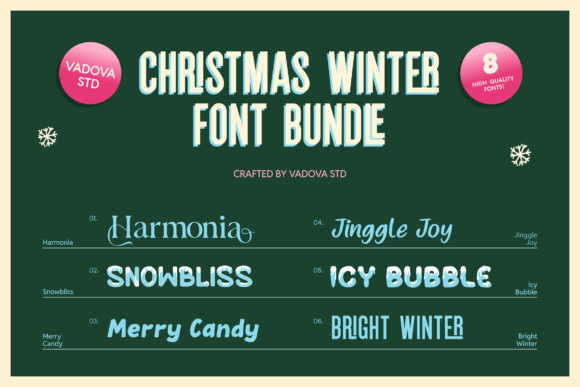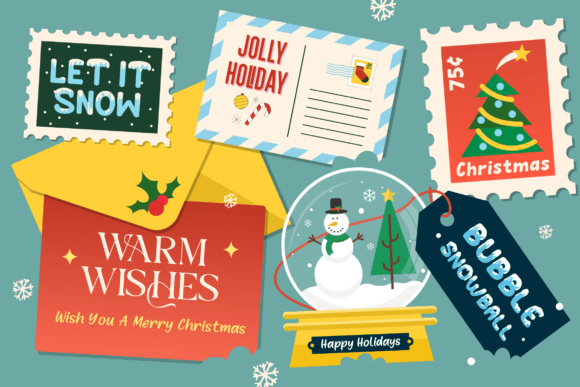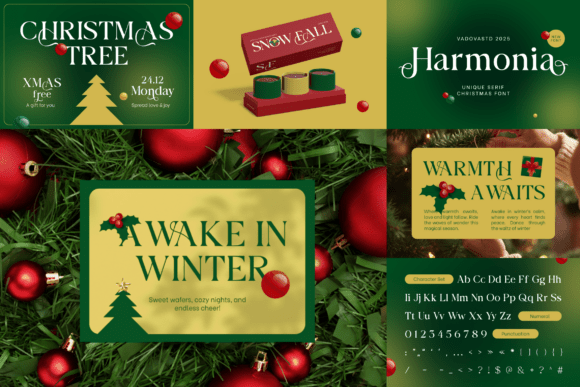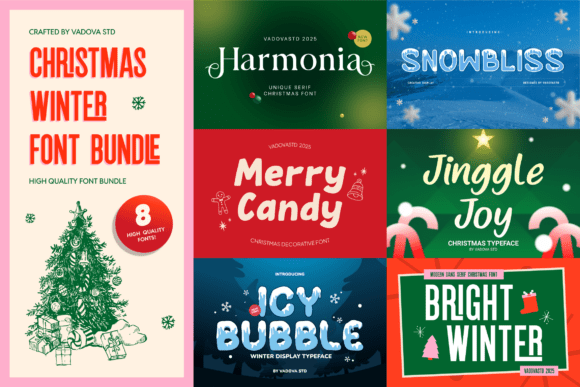
Christmas Winter Font Bundle The Christmas Winter Font Bundle is a cheerful and festive type collection created to bring warmth, joy, and holiday spirit to your designs.
Inspired by cozy winter moments, snowy celebrations, and the magic of Christmas, this bundle features playful letterforms that feel friendly, bright, and full of seasonal charm Each typeface is crafted to stand out in display use, with fun details, soft shapes, and expressive character.